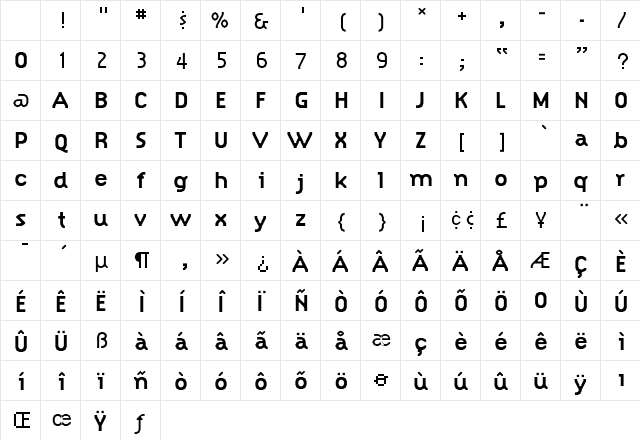
SimplexBold Regular
SimplexBold Regular Font Preview
SimplexBold Regular Uppercase Preview
SimplexBold Regular Lowercase Preview
SimplexBold Regular Numeric Preview
SimplexBold Regular Character Map
Complete SimplexBold Regular glyph index. Displaying only characters natively supported by SimplexBold Regular font.
SimplexBold Regular Character Map
Design Context for SimplexBold
SimplexBold is a composed and adaptable typeface that performs quietly and consistently across a wide range of design contexts. Its bold stroke weight gives it real presence on the page.